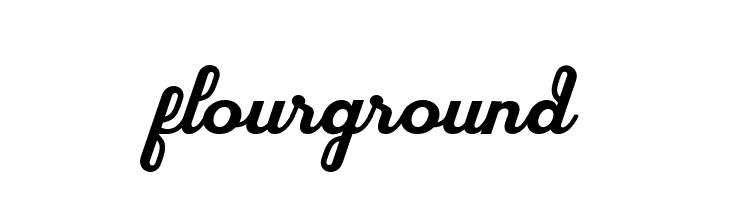
A stylish cursive font with elegant, flowing strokes and seamless character connections.
A bold, expressive script font with elegant, flowing letterforms.
An elegant and sophisticated script font with flowing, cursive letterforms.
A bold, modern cursive font with a clean, uniform appearance.
A flowing cursive font with a handwritten, elegant style.
A cursive, handwritten font with elegant loops and a sophisticated style.